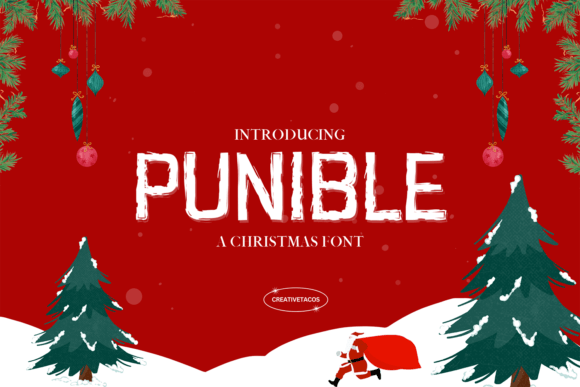
Introducing Punible Font, the ultimate choice for all your seasonal design needs! With its captivating and versatile display font family, Punible is sure to elevate your holiday projects to new heights. Created by the talented team at Creative Tacos, this font is specially crafted to bring your festive visions to life.
Looking to spread some holiday cheer? Punible Font is your perfect companion. Its charming and eye-catching style is ideal for holiday cards, gift tags, and cheerful headlines that will put a smile on anyone's face. Capture the spirit of Christmas with stunning logos and branding that will make your business stand out from the crowd.
Need to create captivating visuals for your Christmas quotes or magazine layouts? Punible Font has got you covered. Its unique and artistic design adds a touch of elegance to any text, making your quotes and layouts truly memorable. Whether it's web design, advertisements, or invitations, this font will add a dash of festive magic to every project.
One of the best features of Punible Font is its compatibility with holiday-themed cover art. Whether you're designing album covers, book covers, or social media graphics, this font will instantly transport your audience to a world of holiday joy and celebration. The possibilities are endless when you have Punible Font at your fingertips.
But Punible Font isn't just for the holiday season. Its versatility allows it to shine all year round. From greeting cards to posters, from branding to web design, this font adapts effortlessly to any creative endeavor you have in mind. Its timeless appeal and emotional impact will keep your audience engaged and coming back for more.